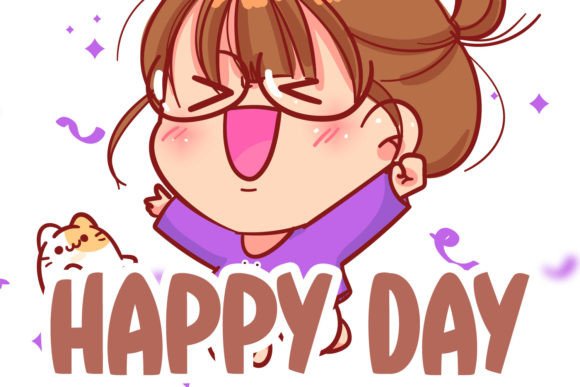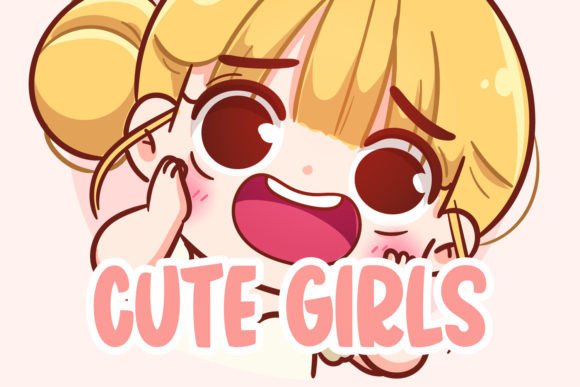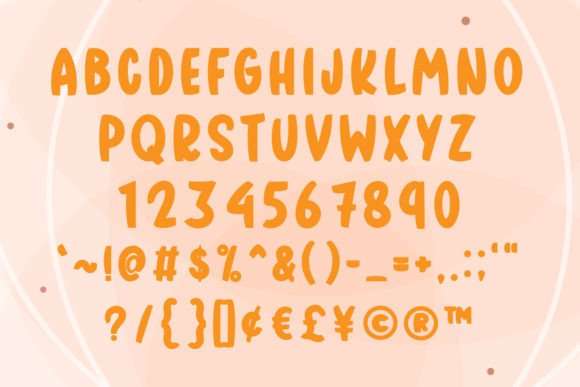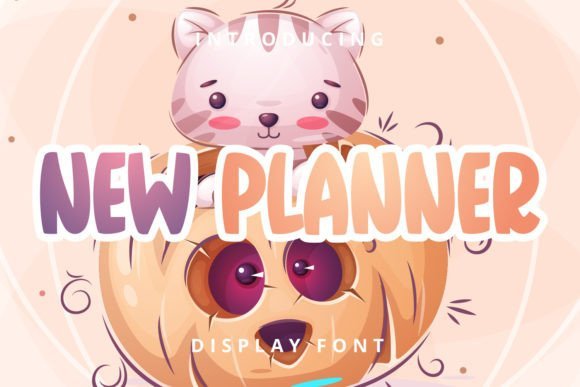
Introduction to New Planner Font
New Planner is a modern display font that is readable, smart, cute and stylish.
It is defined by smooth curves and is perfect for fashion branding or editorial designs Add it confidently to your projects, and you will love the results.